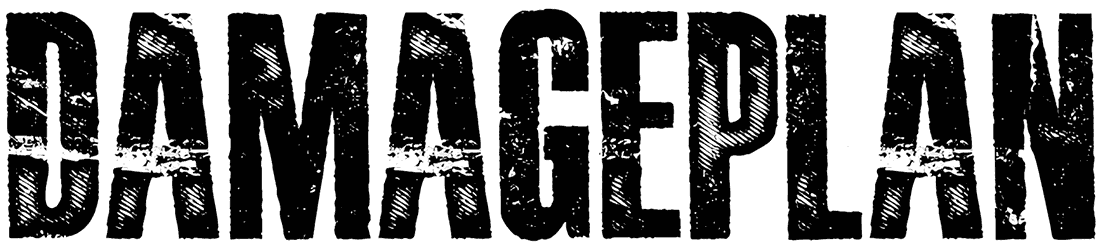
Damageplan Font
Damageplan, what a distinctive face for a particular design. As a destroyed font with a bold outward and forworn look, it only includes caps, which means no lowercase, numerals, and almost all of the punctuation. For displaying your designs, such as posters, covers, wordmarks, or other items, you can test Damageplan and create a modern and urban vibe.